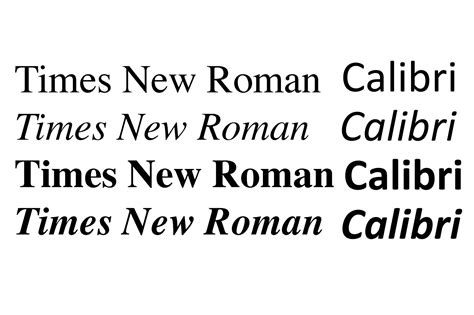
Times New Roman Font Size: A Comprehensive Guide
Hey guys! Let’s dive deep into the world of Times New Roman , specifically focusing on its font size. Understanding font sizes is crucial for creating professional-looking documents, whether you’re writing a research paper, designing a brochure, or simply crafting an email. So, grab a cup of coffee, and let’s get started!
Understanding Font Sizes in Times New Roman
When we talk about font size , we’re referring to the height of the characters in a typeface. This measurement is typically expressed in points (pt). One point is approximately 1 72 of an inch. So, a 12pt font means that the characters are roughly 12 72 (or 1 6 ) of an inch tall. Times New Roman , being a serif font, has serifs – those little decorative strokes at the end of the letters – which can subtly influence how the font size is perceived compared to sans-serif fonts.
Different font sizes serve different purposes. For example, 10pt or 11pt might be suitable for body text in a book, while 14pt or 16pt might be used for headings. The choice depends on factors like readability, the overall design, and the intended audience. In the context of Times New Roman , selecting the right font size can significantly impact the document’s formality and readability. For academic papers, 12pt is often the standard, ensuring clarity and adherence to submission guidelines. For more casual documents, you might experiment with slightly different sizes to achieve the desired aesthetic.
Moreover, the perception of font size can also be influenced by the line height (leading) and the spacing between letters (tracking). Adjusting these parameters in conjunction with the font size can fine-tune the overall appearance and readability of your text. When working with Times New Roman , paying attention to these details is particularly important because its classic design can either look elegant or outdated depending on how it’s used. So, experimenting with different combinations of font size, line height, and tracking can yield surprisingly different results, ultimately enhancing the visual appeal and readability of your document.
Standard Font Sizes for Different Documents
Okay, let’s get practical! What font size should you use for different types of documents when using Times New Roman ? Here’s a handy guide:
• Essays and Research Papers: 12pt is the de facto standard. It’s readable, professional, and generally required by academic institutions. Using Times New Roman in this context ensures your work aligns with traditional academic expectations.
• Resumes and Cover Letters: 11pt or 12pt. You want your resume to be easy to read, but you also want to fit everything on one or two pages. Times New Roman offers a balance of readability and space efficiency.
• Business Letters and Memos: 12pt is a safe bet. It conveys professionalism and ensures clarity. Times New Roman is a classic choice for business correspondence, projecting a sense of tradition and reliability.
• Books and Novels: 10pt or 11pt. Smaller font sizes are common in books to maximize the amount of text on each page. Times New Roman , with its clear and legible design, works well even at these smaller sizes.
• Legal Documents: 12pt is generally required. Legal documents need to be easily readable and conform to specific formatting standards. Times New Roman is a standard choice in the legal field, ensuring compliance and clarity.
Remember, these are just guidelines. Always check specific requirements or style guides. For instance, some professors might prefer 11pt with specific margin requirements, while certain legal jurisdictions might mandate a different font altogether. Ultimately, the goal is to ensure readability and professionalism, and Times New Roman , when used appropriately, can certainly help you achieve that.
Adjusting Font Size for Readability
Readability is key, folks! No matter how beautiful Times New Roman is, if your text is too small or too large, people won’t want to read it. Several factors influence readability, and adjusting font size is just one piece of the puzzle. Consider your audience: are they likely to have vision problems? Are they reading on a small screen? These factors should influence your font size choices.
For online content, larger font sizes are generally preferred because screens can be harder to read than printed pages. A 14pt or 16pt Times New Roman might be more appropriate for a blog post than for a printed document. Additionally, line height (the space between lines) plays a crucial role. Ample line height makes the text easier to scan, reducing eye strain. A good rule of thumb is to set the line height to be 1.2 to 1.5 times the font size.
Furthermore, consider the contrast between the text and the background. Black text on a white background offers the highest contrast and is generally the most readable. However, if you’re using a colored background, make sure the text color provides sufficient contrast. When using Times New Roman on a colored background, experiment with different shades and tints to find the optimal combination. Also, be mindful of the overall layout of your document. White space can significantly improve readability by preventing the text from feeling cramped. Use margins, padding, and paragraph spacing to create a visually appealing and easy-to-read document. By carefully considering these factors and adjusting the font size accordingly, you can ensure that your Times New Roman text is both aesthetically pleasing and highly readable.
Times New Roman in Different Software
Using Times New Roman across different software platforms like Microsoft Word, Google Docs, and Adobe InDesign is generally straightforward, but there can be subtle differences in how the font is rendered. Each platform has its own rendering engine, which can affect the appearance of the font, particularly at smaller sizes or on different screen resolutions. Therefore, it’s essential to preview your documents on the intended platform to ensure the Times New Roman text looks consistent and legible.
In Microsoft Word, you can easily adjust the font size using the font size dropdown menu on the Home tab. You can also use the keyboard shortcuts Ctrl + ] to increase the font size and Ctrl + [ to decrease it. Google Docs offers similar functionality, with the font size menu located on the toolbar. In Adobe InDesign, you have more granular control over font size, line height, and other typographic settings. You can specify the font size to the nearest 0.1 point, allowing for precise adjustments.
When working with Times New Roman in different software, be aware of potential font substitution issues. If you’re sharing a document with someone who doesn’t have Times New Roman installed on their system, their software might substitute a different font, which can alter the appearance of your document. To avoid this, you can embed the font in your document (if the software allows it) or convert the text to outlines or curves. However, embedding fonts can increase the file size, and converting text to outlines makes it non-editable. So, weigh the pros and cons carefully.
Alternatives to Times New Roman
While Times New Roman is a classic, it’s not always the best choice. Sometimes, you might want to use a different font for a fresh or modern look. Here are a few alternatives:
• Georgia: Another serif font that’s very readable on screen. It’s a bit wider than Times New Roman , making it feel more modern.
• Cambria: A modern serif font designed specifically for on-screen reading. It’s clear, legible, and works well at various sizes.
• Arial: A sans-serif font that’s widely available and highly readable. It’s a good choice for body text when you want a clean and modern look.
• Calibri: The default font in Microsoft Office for many years, Calibri is a sans-serif font that’s both modern and readable. It’s a good alternative to Arial.
• Open Sans: A popular sans-serif font that’s used extensively on the web. It’s clean, modern, and highly versatile.
Ultimately, the best font depends on the specific project and the desired aesthetic. Experiment with different fonts and see what works best for you. But don’t be afraid to step outside of Times New Roman and explore the vast world of typography! Each of these alternatives offers a unique flavor and can help you achieve a different tone and feel in your documents. Consider the context, the audience, and the overall design when making your font choices. Happy designing!
So, there you have it! A comprehensive guide to Times New Roman font size. Remember, the right font size depends on the type of document, the audience, and the desired readability. Experiment, adjust, and always prioritize clarity. And hey, don’t be afraid to break the rules sometimes! But before you do, make sure you understand them. Now go forth and create beautiful, readable documents with Times New Roman (or any other font you choose!). Good luck, and happy writing!